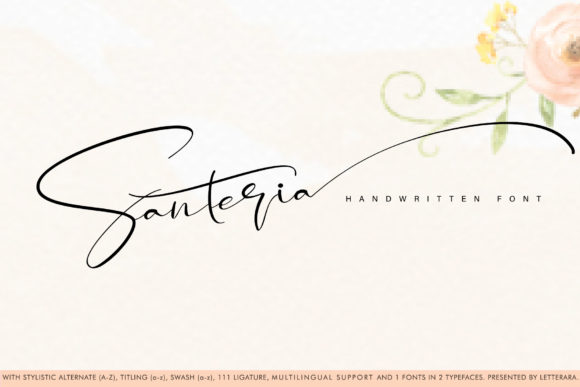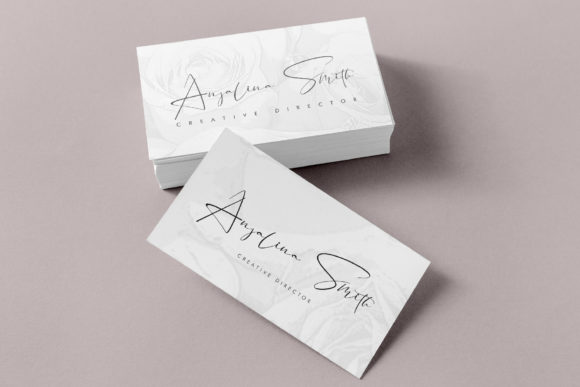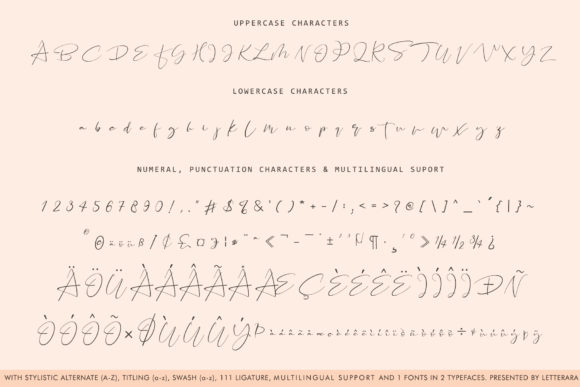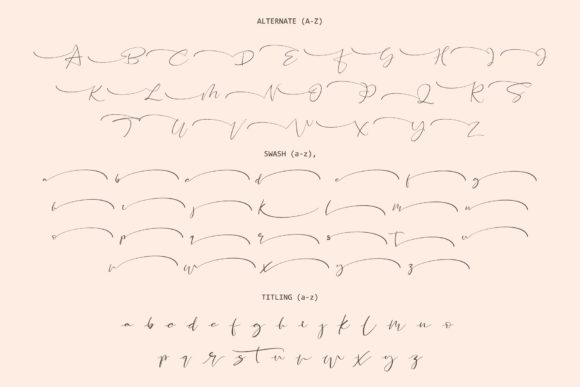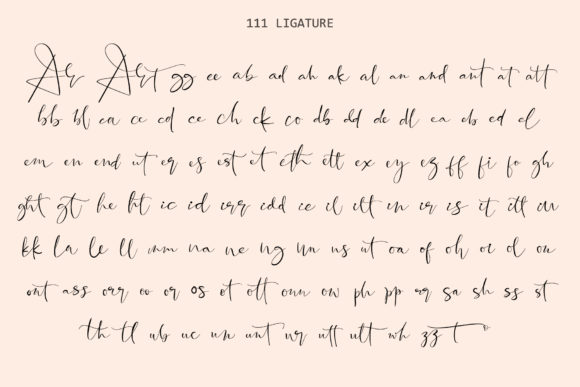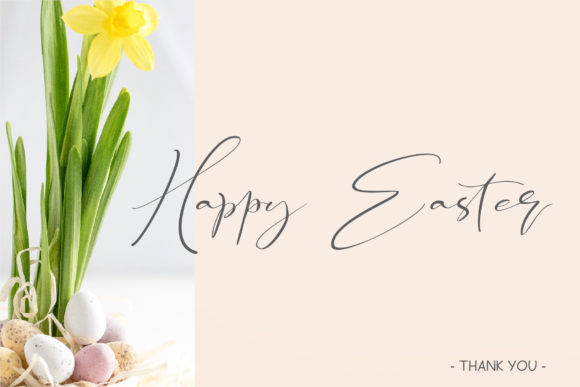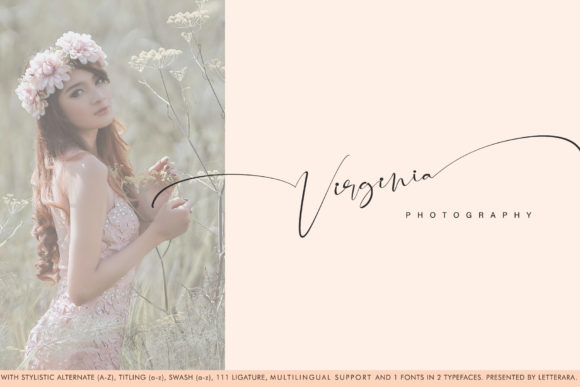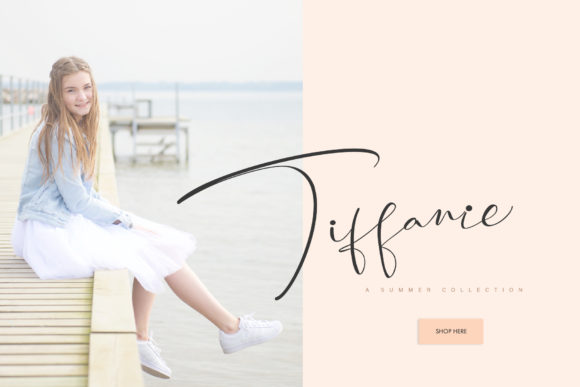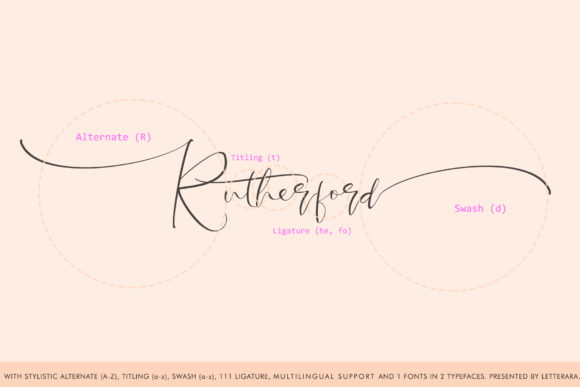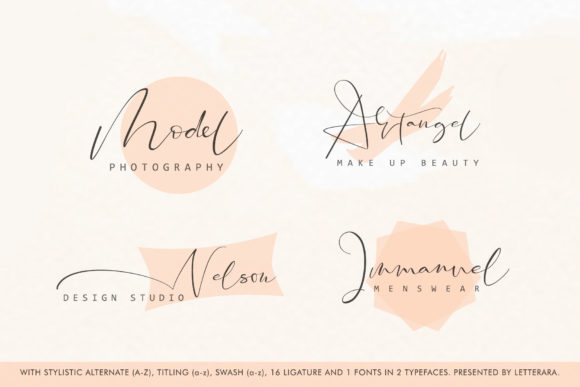
Santeria Font
About Santeria Font
Updating classic calligraphy with a contemporary spin, Santeria is a one-of-a-kind handwritten font with a luxurious feel. It will effortlessly elevate any design project!